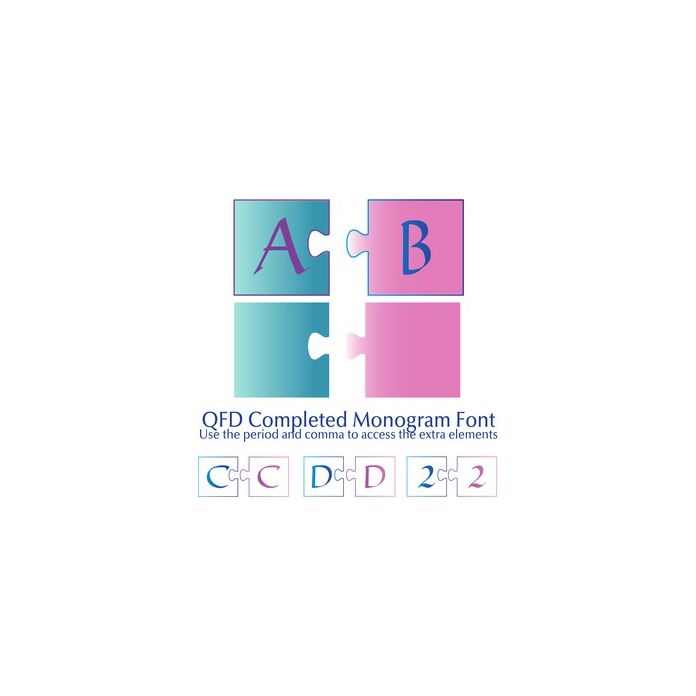
The upper case has the tabs and the lower case has the sockets. Access the underlay pieces with the period and the comma. To access the alternate numbers, hold the shift key while pressing the number.